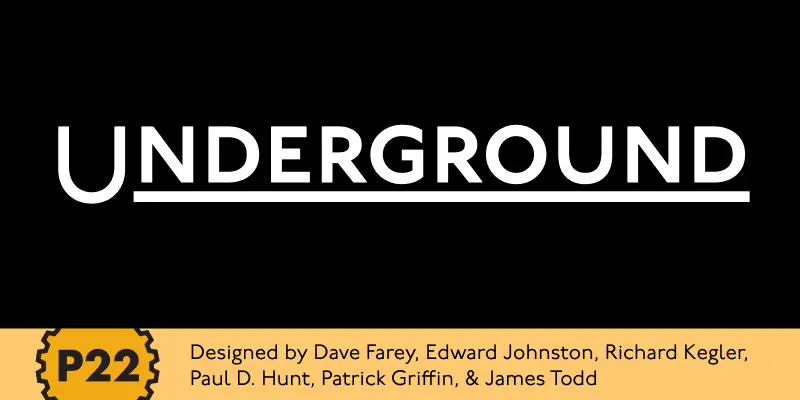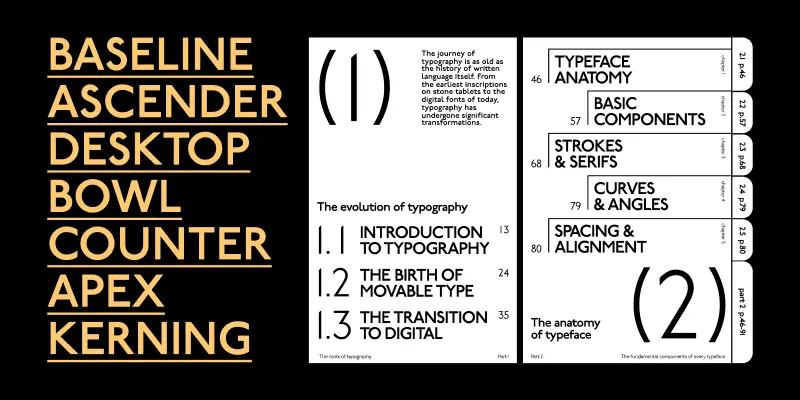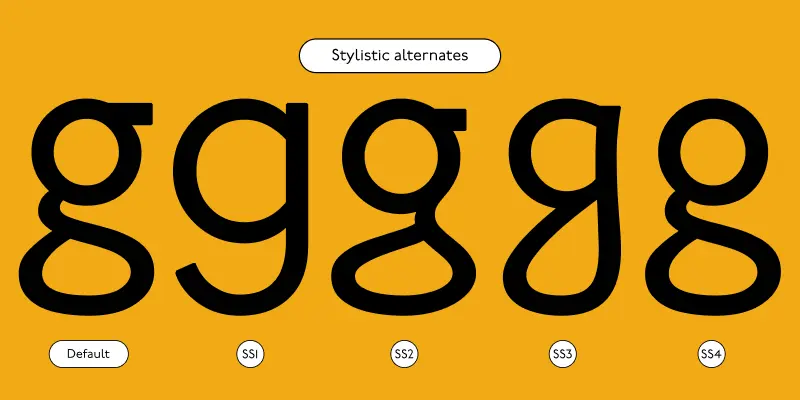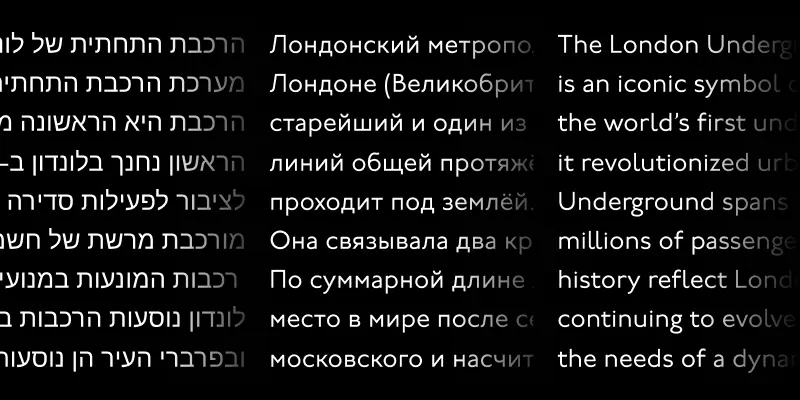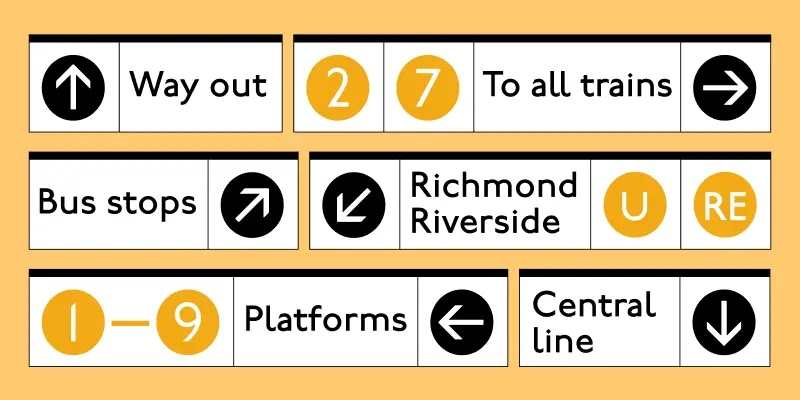
Underground
The P22 Underground fonts started in 1997 as the first and only officially licensed revival of Edward Johnston’s London Underground railway lettering. Drawn by Richard Kegler, this design sought to be as true to the original as possible. In 2007, Paul D. Hunt revised and expanded the fonts into a massive character set with several additional weights, expansive language support, and slight stylistic revisions. Endeavoring to make this font family a more versatile and useful tool for a designer, P22 sought to add true italics to this stalwart type design. The only existing italic interpretation of Johnston’s Underground type was the ITC Johnston executed by the inimitable Dave Farey and Richard Dawson (Housestyle Graphics), so we decided to approach Dave Farey to imagine a different approach to the Underground Italic — one that would pair well with the P22 Underground, but imagined as if Edward Johnston himself might approach the design challenge, informed by the many examples of his work as a master calligrapher and noted lettering instructor. This new italic version delivered to P22 by Housestyle Graphics was then expanded for all of the existing P22 Underground weights and characters sets by James Todd (JTD Type). Final mastering of the P22 Underground Pro Roman and Italic with a streamlined yet still expansive language coverage (Central European, Greek, and Cyrillic all in one font!) by P22 partner Patrick Griffin (Canada Type) makes the new P22 Underground Pro family a rock-solid and very versatile humanist sans serif font family that should be a cornerstone of any designer’s typographic toolkit. These refinements remain true to the original Johnston design while employing contemporary typographic finesse to create six weights with optional alternates to increase legibility. After five years in development, the new P22 Underground Pro is the most iconic and useful font family ever presented by P22 Type Foundry.
Designed by Dave Farey, Edward Johnston, Richard Kegler, Paul D. Hunt, Patrick Griffin & James Todd